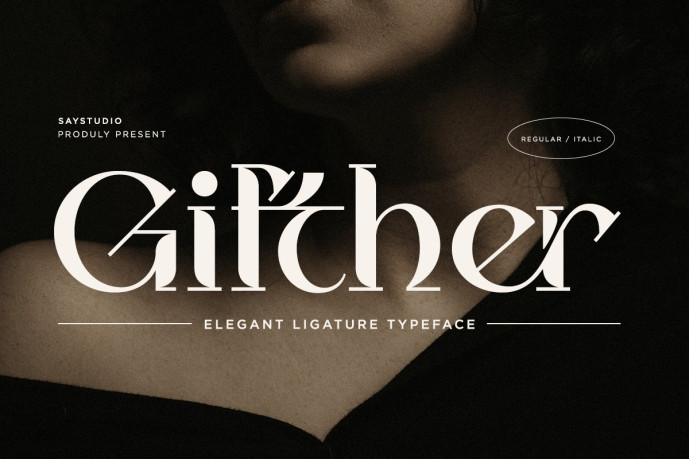
Gifther Font
Designer: Say_Studio
Gifther Font is a modern and elegant serif typeface that features distinctive variants and full multilingual support, all complemented by impeccable kerning. This typeface is perfect for creating sophisticated and luxurious logos, refined editorial layouts, women’s magazines, fashion identities, beauty brands, contemporary advertisements, invitations, artistic quotes, interior design, book covers, and special occasion designs.